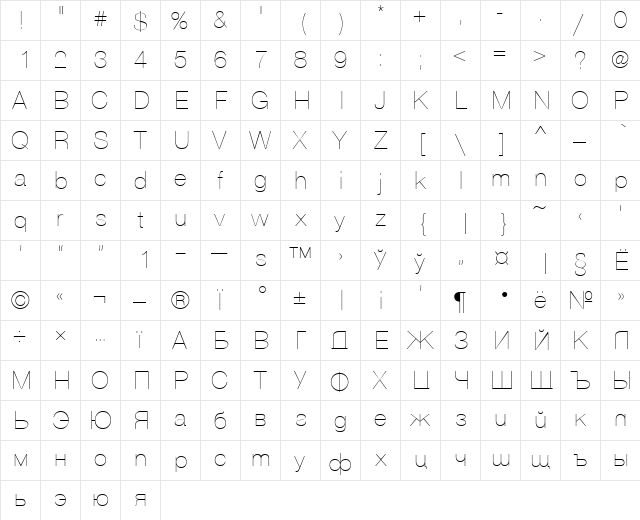
Vanta Thin Plain
Design Context for Vanta Thin Typeface
Vanta Thin is a composed and adaptable typeface that performs quietly and consistently across a wide range of design contexts. Its slender proportions lend an understated elegance to any composition.
Pro Tip: Pair Vanta Thin with a font of contrasting weight or personality to build a more expressive typographic hierarchy.